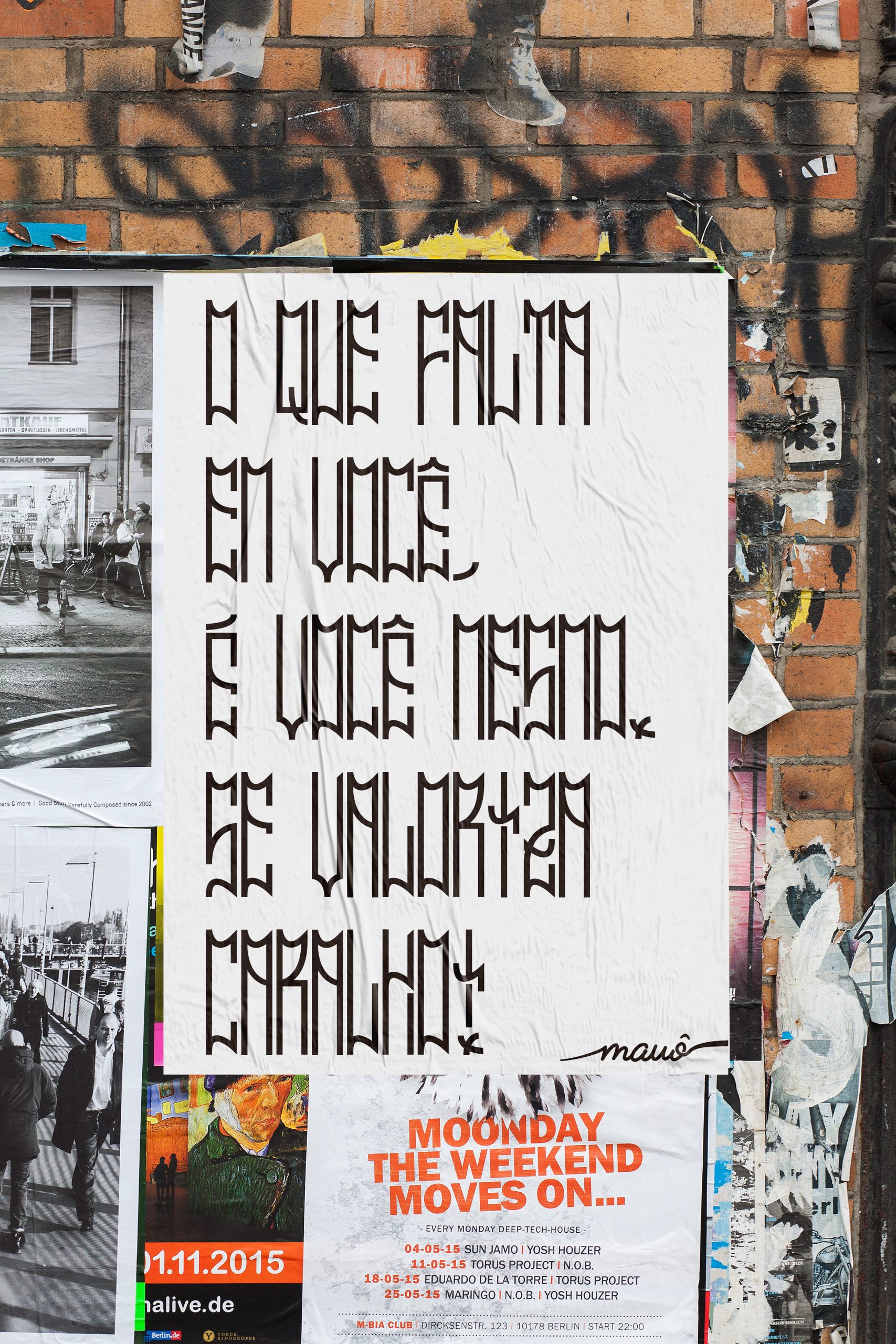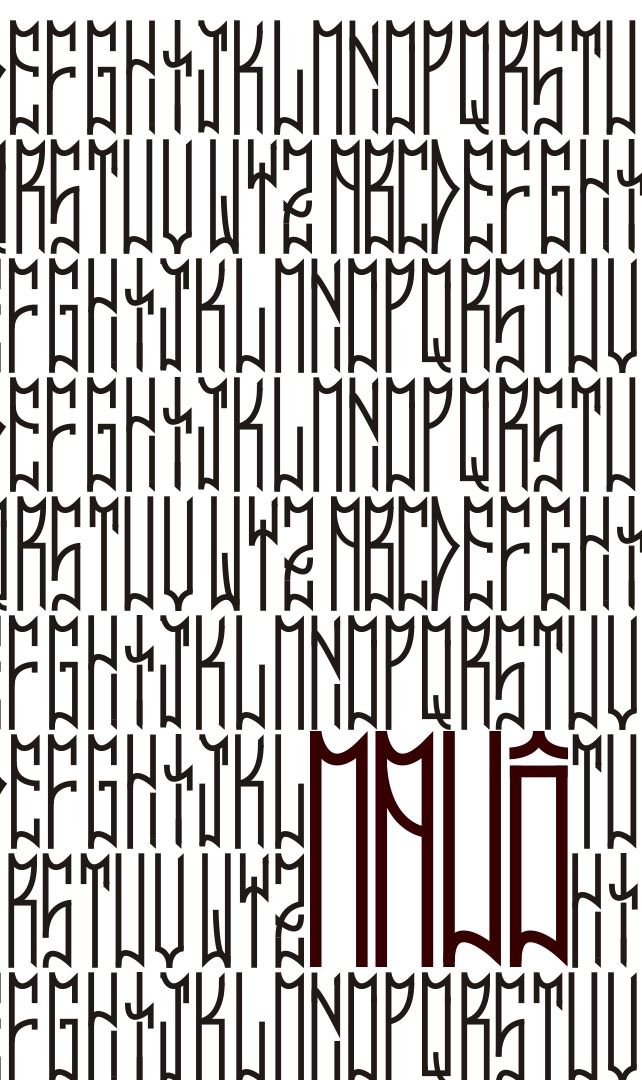
Mauô Typeface
Mauô Typeface is a slim, cool and modern display font. No matter the topic, this font will be an incredible asset to your fonts’ library, as it has the potential to elevate any creation.
Fonte para usar em suas street arts!